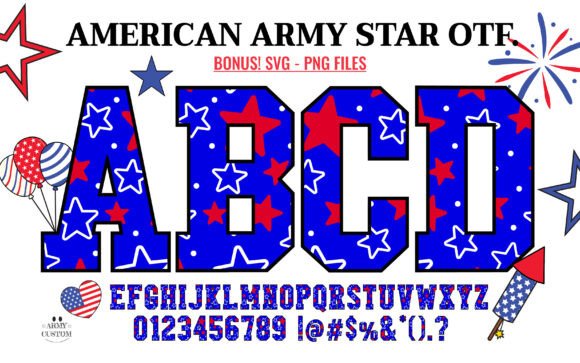
Unleashing the Spirit of Patriotism with the American Army Font
I’ll never forget the summer I landed my first design project for a Memorial Day campaign. I was excited to dive in, but as I began to work on the visuals, I realized I was struggling to find the perfect font. I wanted something that captured the essence of American patriotism, but everything I found seemed either too generic or too kitschy. That’s when I stumbled upon the American Army Font, and it was love at first sight! ✨
True to its name, this font embodies the spirit of Memorial Day Americana in every curve and line. Inspired by the heart of the United States, it uniquely captures the charm and aesthetics of American design. The American Army Font is more than just a font; it’s a tribute to the Land of the Free, brought to life through typography.
• ✨ Unique and authentic American design inspiration
• ✅ Extensive OpenType features for creative flexibility
• ✅ Stylistic alternates for varied typography
• ✅ Perfect for patriotic projects, from Memorial Day to Independence Day
While the American Army Font is incredibly versatile, there are a few things to keep in mind: ⚠️ It might not be the best fit for body text due to its decorative nature. Also, some users have noted that it can be a bit tricky to read at smaller sizes, so it’s best used for headlines or titles. 🤔
The Designer Inspiration Behind the American Army Font
The American Army Font was created by a talented designer who wanted to capture the essence of American patriotism. Inspired by vintage military insignia and classic American typography, this font is a love letter to the United States. The designer’s goal was to create a font that would evoke feelings of pride and freedom, and I believe they’ve succeeded.
Q: Can I use the American Army Font for body text?
A: While it’s possible, the font’s decorative nature makes it better suited for headlines or titles. For body text, consider a more readable font.
Q: Does the American Army Font include OpenType features?
A: Yes, the font comes with extensive OpenType features, including stylistic alternates and glyphs for added creativity.